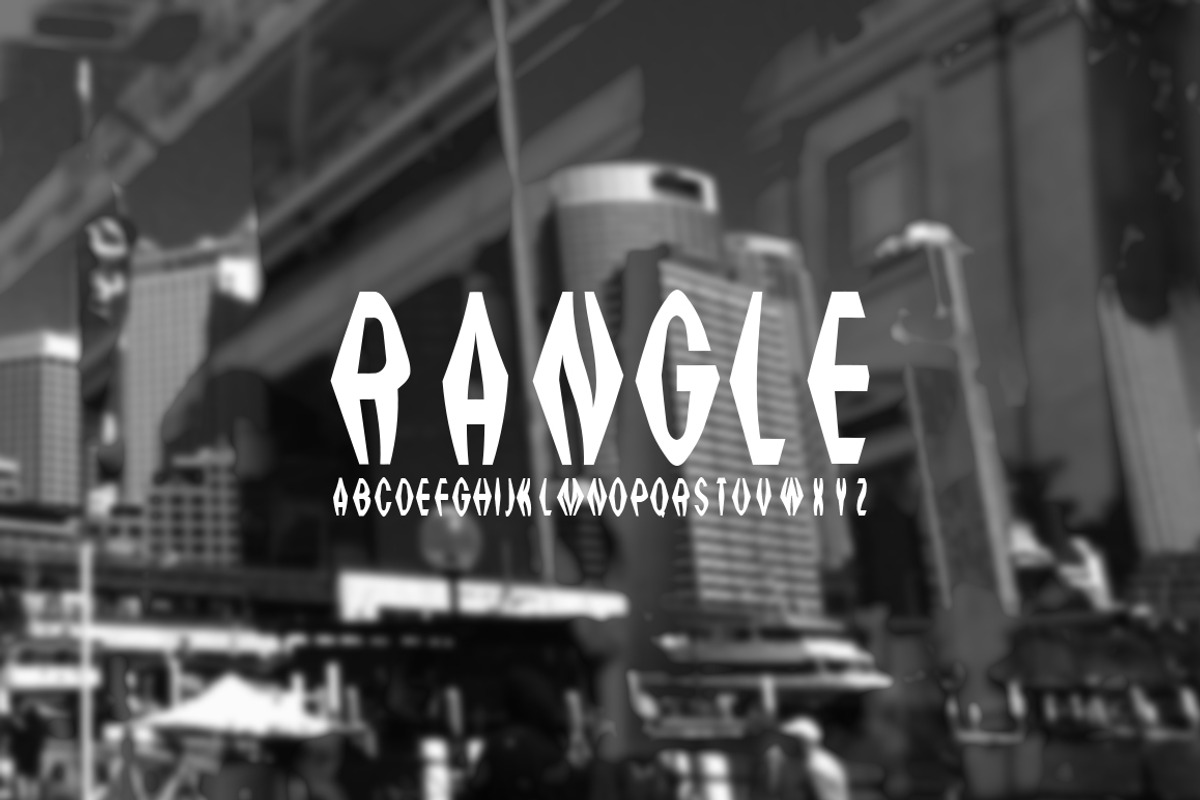
Font | RANGLE - ONLY 2$
Font | RANGLE - ONLY 2$ by Leonard Posavec is a font selected for branding, posters, packaging, typography.
Font | RANGLE - ONLY 2$ by Leonard Posavec fits naturally into Branding, posters, packaging, typography.